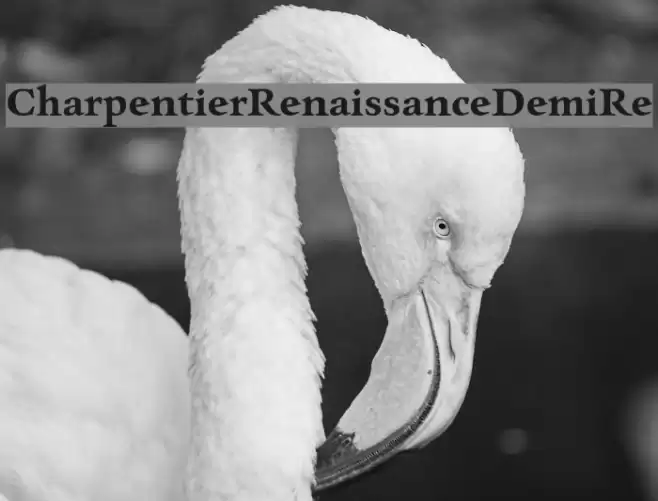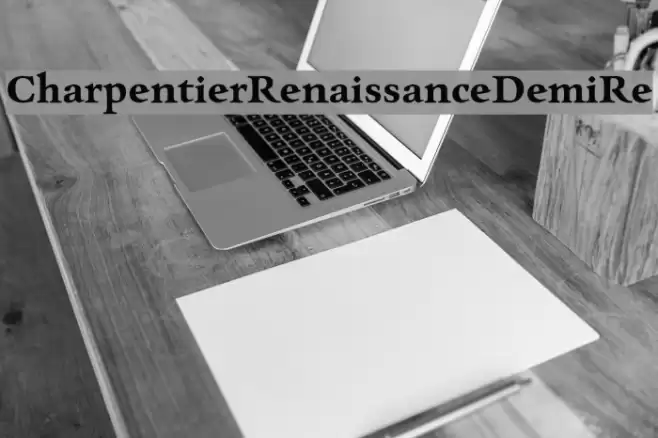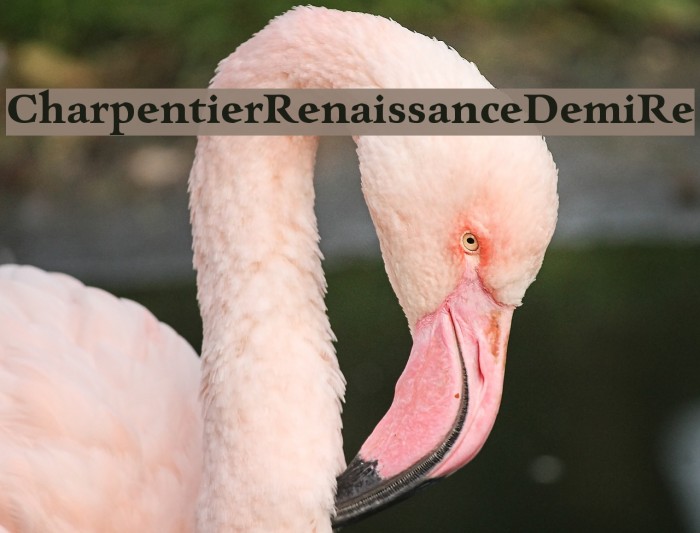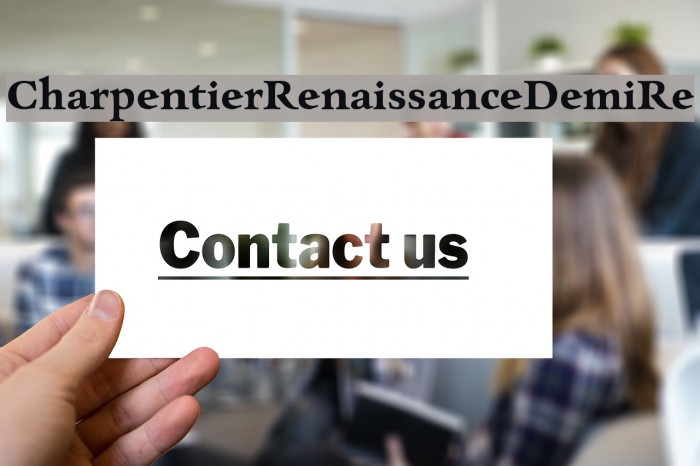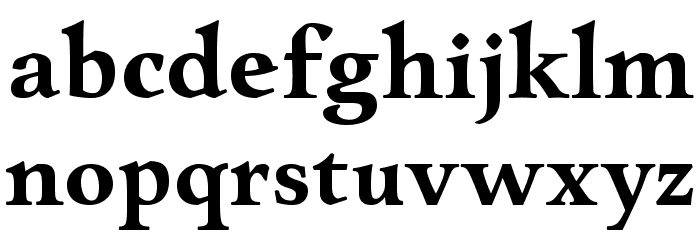
CharpentierRenaissanceDemiRe Font
CharpentierRenaissanceDemiRe Description
This font exhibits a classic and elegant style, reminiscent of Renaissance typography. The characters are well-proportioned with a slight flair at the ends, giving it a sophisticated and timeless appearance. The uppercase letters are bold and commanding, while the lowercase letters maintain a balanced and harmonious look. The serifs are pronounced, adding to the traditional feel of the font. The overall design is clean and legible, making it suitable for a variety of formal applications.
A classic serif font with elegant, Renaissance-inspired details from Uncategorized fonts.
- Proposed Projects: Ideal for formal invitations, historical publications, book covers, and branding that requires a touch of elegance and tradition.
- Overall Style: Classic